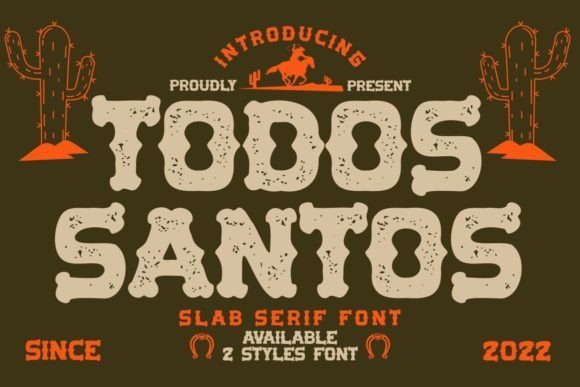
Immerse yourself in the realm of branding with Todos Santos, the captivating display font that will ignite your designs with an unparalleled essence. This remarkable creation by the talented putracetol is meticulously crafted to empower you with the tools to elevate your brand to unprecedented heights.
Unleash your imagination and let Todos Santos guide you on a journey of visual storytelling. Its bold and stylish characters possess an undeniable charm that will leave an indelible impression on your audience. Whether you're crafting logos that demand attention or designing packaging that exudes sophistication, Todos Santos is your trusted companion.
But there's more to Todos Santos than meets the eye. Its PUA encoding grants you access to a treasure trove of glyphs and ligatures, giving you the freedom to explore endless creative possibilities. With Todos Santos at your fingertips, the boundaries of branding become limitless.
Don't let your brand fade into the background. With Todos Santos, you hold the power to create a visual masterpiece that will set you apart from the competition. Its versatility knows no bounds, making it the perfect choice for a wide range of branding endeavors.
Join the ranks of those who dare to dream big and make a lasting impact in the world of branding. Todos Santos is not just a font; it's a gateway to boundless creativity and unparalleled success.